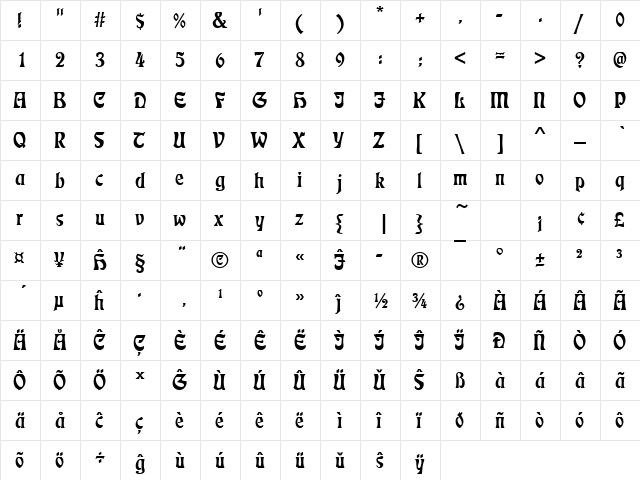
EckmannD Eo Regular
Design Context for EckmannD Eo Typeface
EckmannD Eo is a composed and adaptable typeface that performs quietly and consistently across a wide range of design contexts.